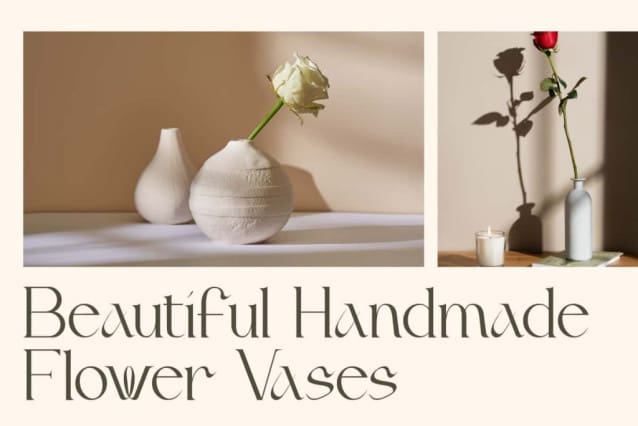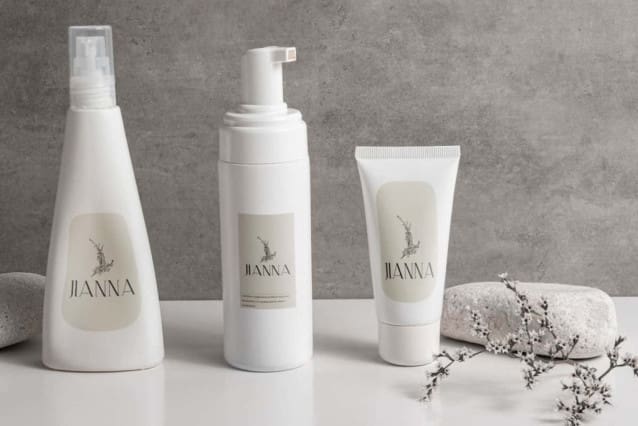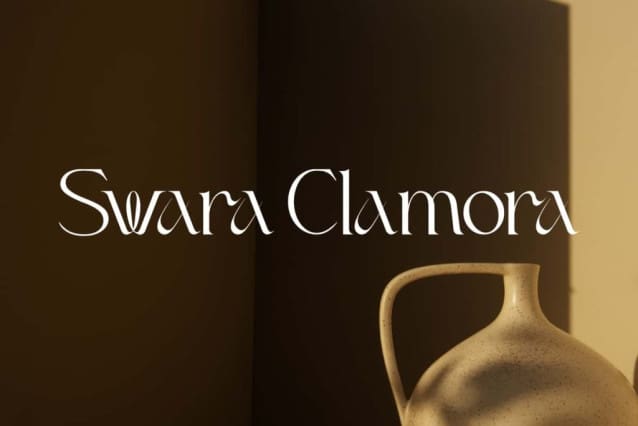
Swara Clamora Font
Swara Clamora Font is a stylish serif style display font with a modern feel inspired by classy typography. This is an elegant font and perfect for any project, it can be used for advertising branding, blogs, invitation cards, labels, layout design, logos, quotes, template designing purposes, websites and more.
Swara Clamora Font includes full set of Uppercase and Lowercase Basic Characters, Numerals, Punctuation, and Symbol. It is a charming serif typeface that presents an elegant style with its appeal that lies in the smooth character of the letters made a little curl. Of course this adds a fashionable touch and looks sophisticated. It is perfect for accessories and jewelry, cosmetic, event or wedding organizer, fashion, florist, furniture, real estate, skincare, spa salon, etc.